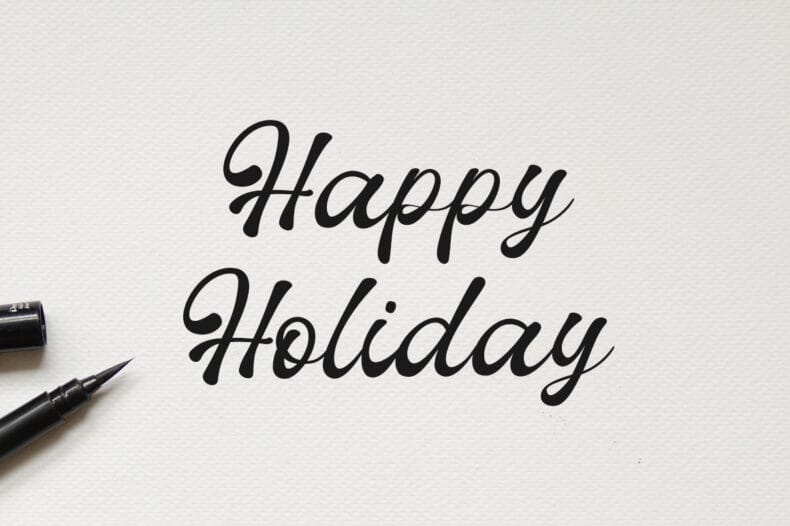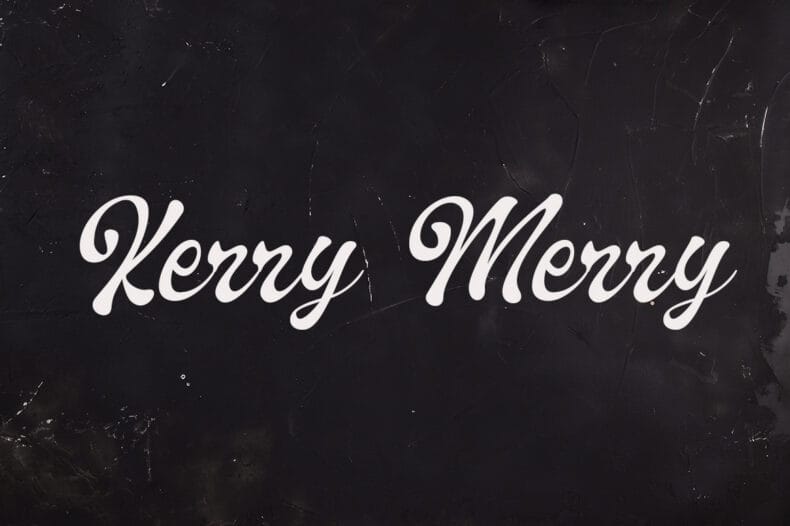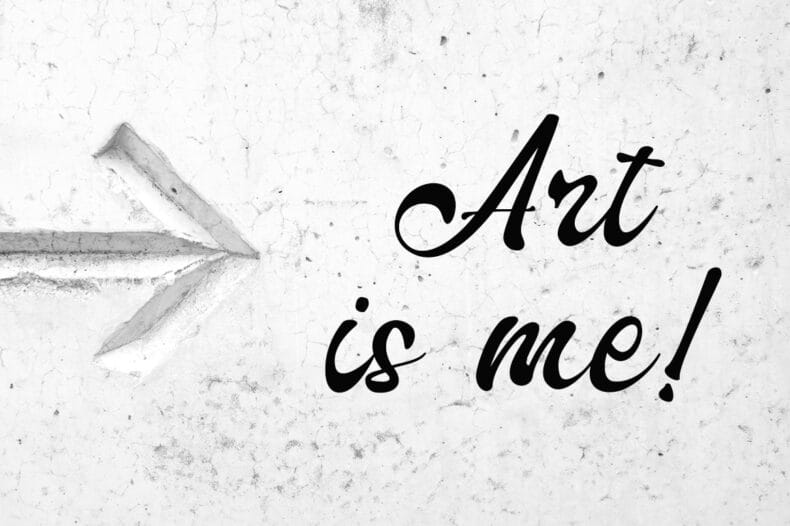
Cherio is a handcrafted script font with smooth edges and a relaxed flow. Try it for friendly wordmarks, card designs, and informal branding concepts.
Cherio offers a smooth handwritten direction when the main wording should feel approachable. It can lead a greeting-card composition, become a short logo concept, or add a personal note to a poster.
Test the name or phrase you plan to use in the preview. A simple background and restrained secondary text will leave room for the script's relaxed rhythm.